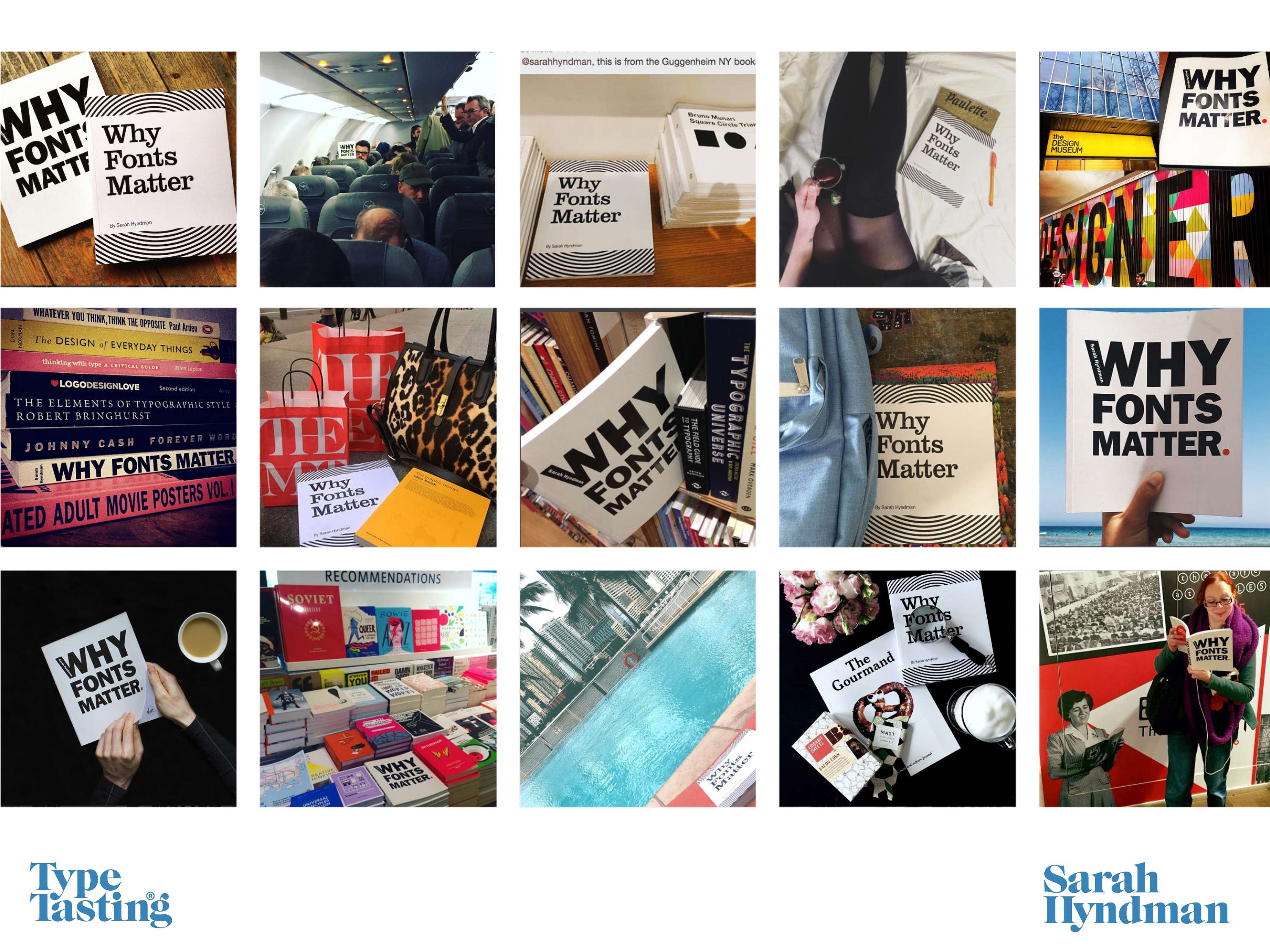
Why Fonts Matter: A book for students and new designers
I wrote this book as a broad introduction to typography and how we respond to fonts psychologically. I think that you have to fall in love with typography and letterforms before you delve into it as an academic subject. The book is full of games and demonstrations that invite you to take part in the experiments yourself. My mission is to change the way we think and talk about typography by making it exciting for everybody. If you have a copy of this book I‘d love to know what you think?